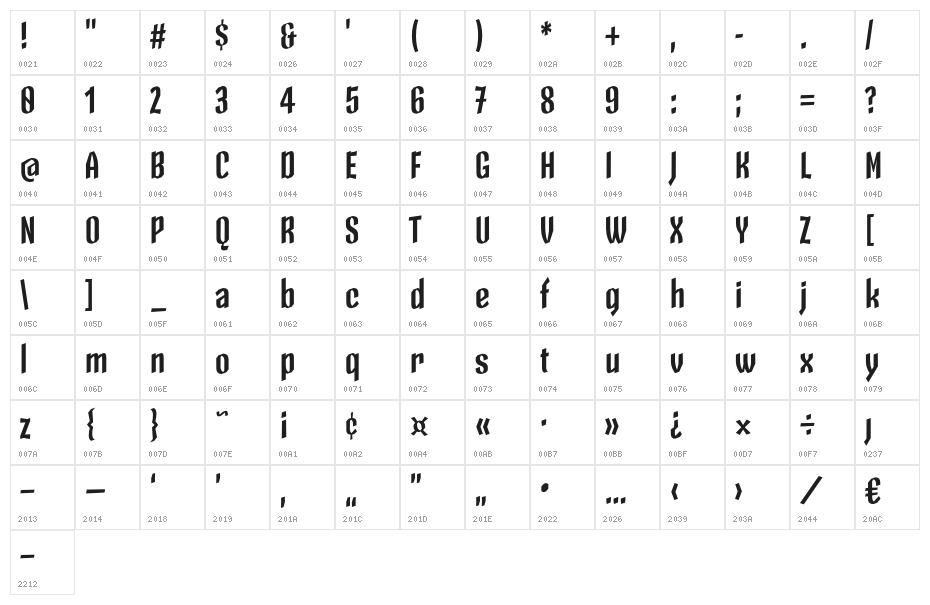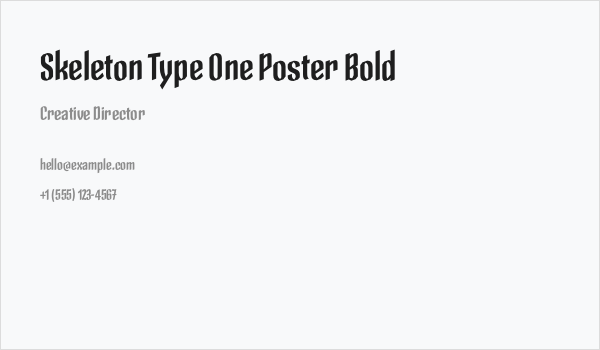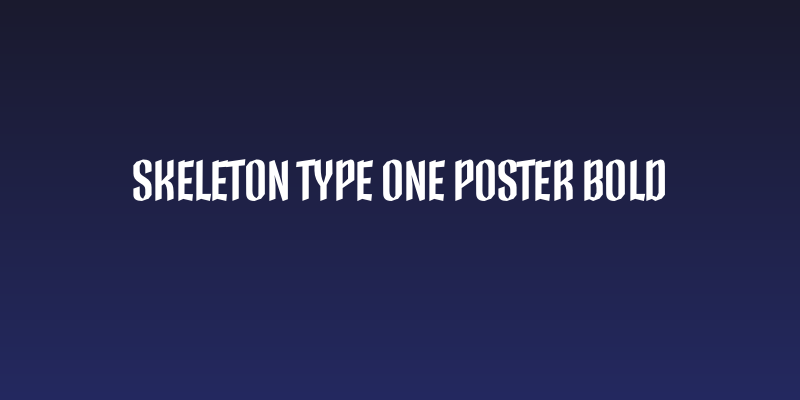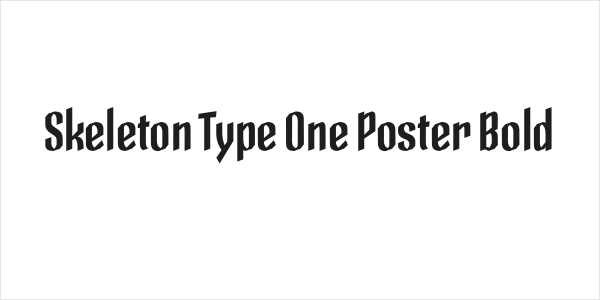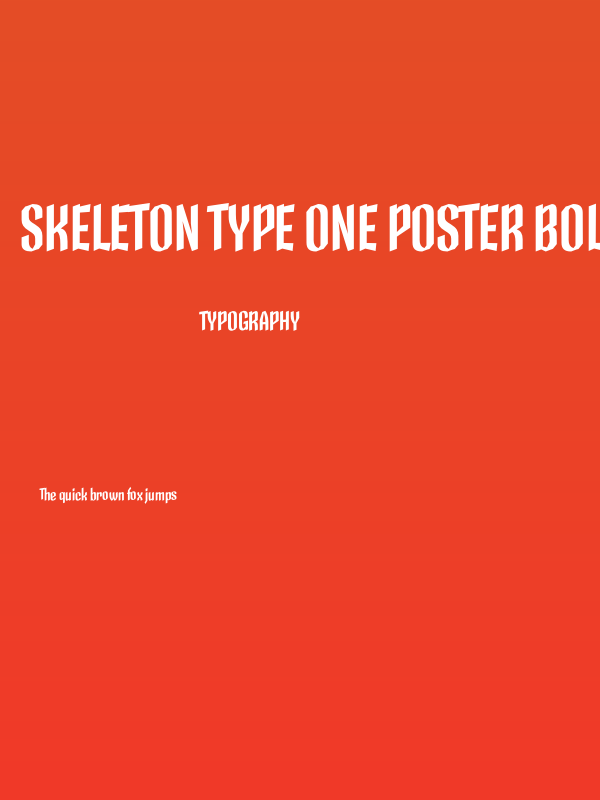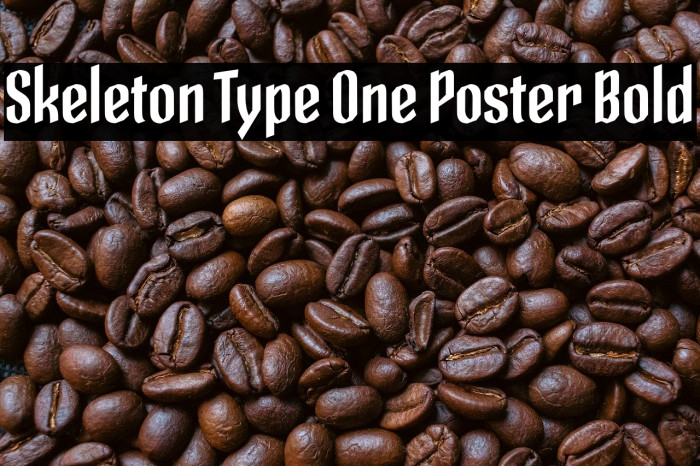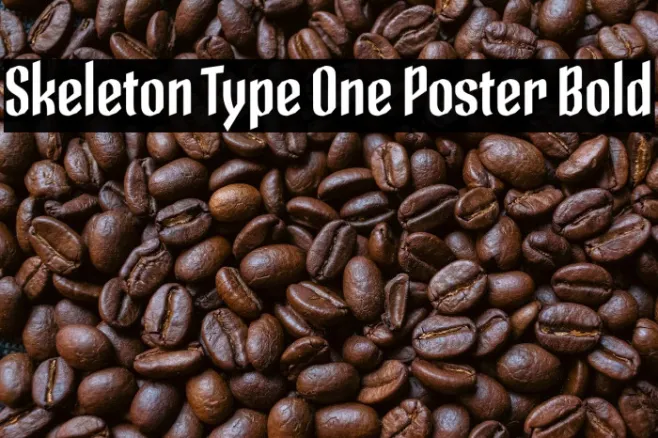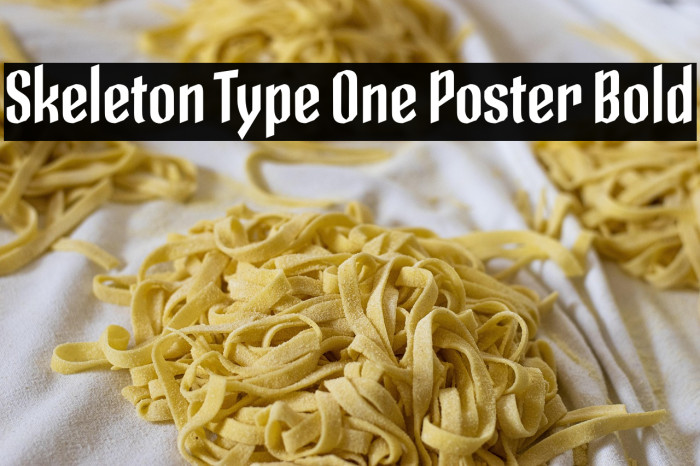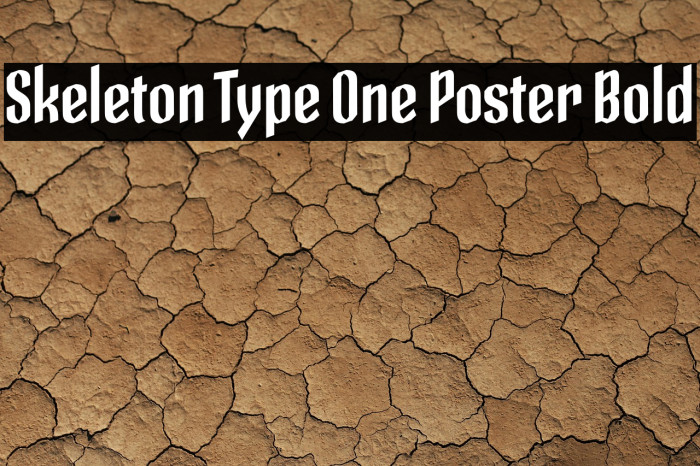
Skeleton Type One Poster Bold Font
Skeleton Type One Poster Bold Description
This font features a bold and dynamic design with a strong presence, characterized by its sharp, angular lines and slightly condensed form. The uppercase letters are tall and commanding, while the lowercase letters maintain a consistent style, offering a cohesive look. The numerals are equally bold, ensuring visibility and impact. Special characters are designed with the same attention to detail, making them suitable for various applications. The overall style is modern and edgy, perfect for making a statement.
| Proposed Projects | Ideal for posters, headlines, branding, and any project requiring a strong visual impact. |